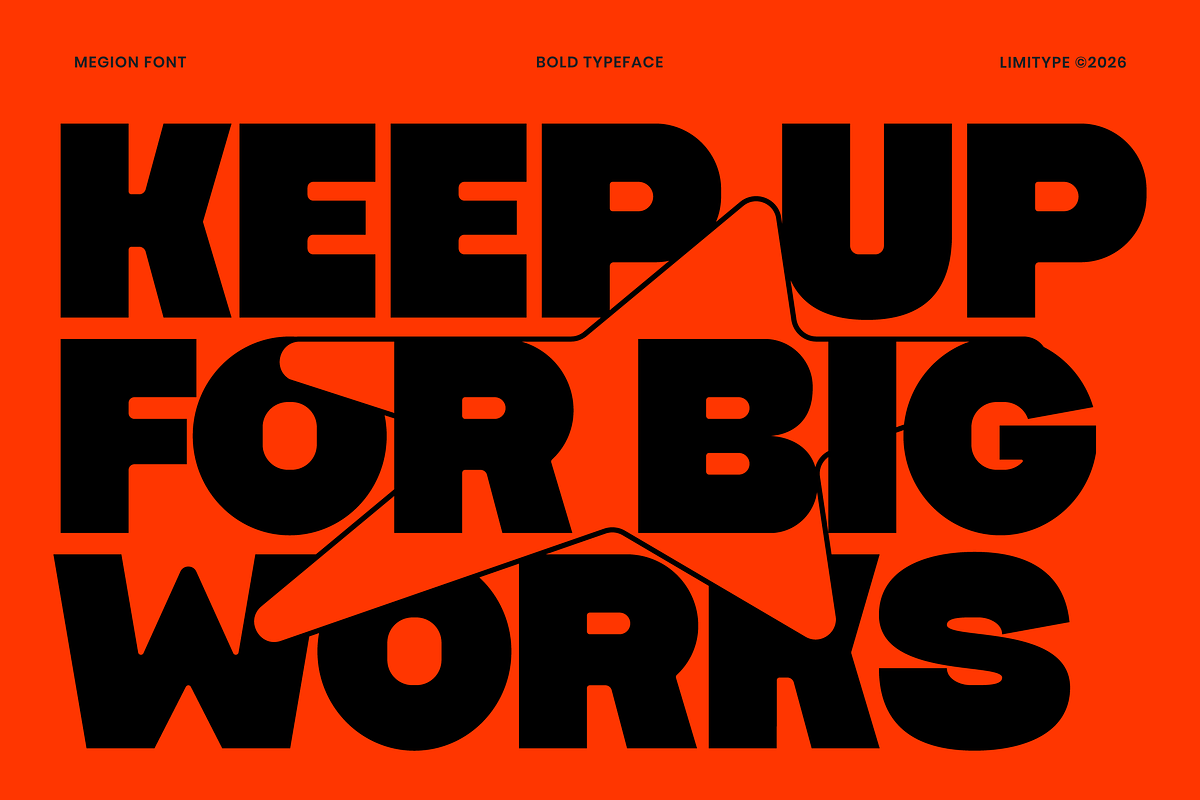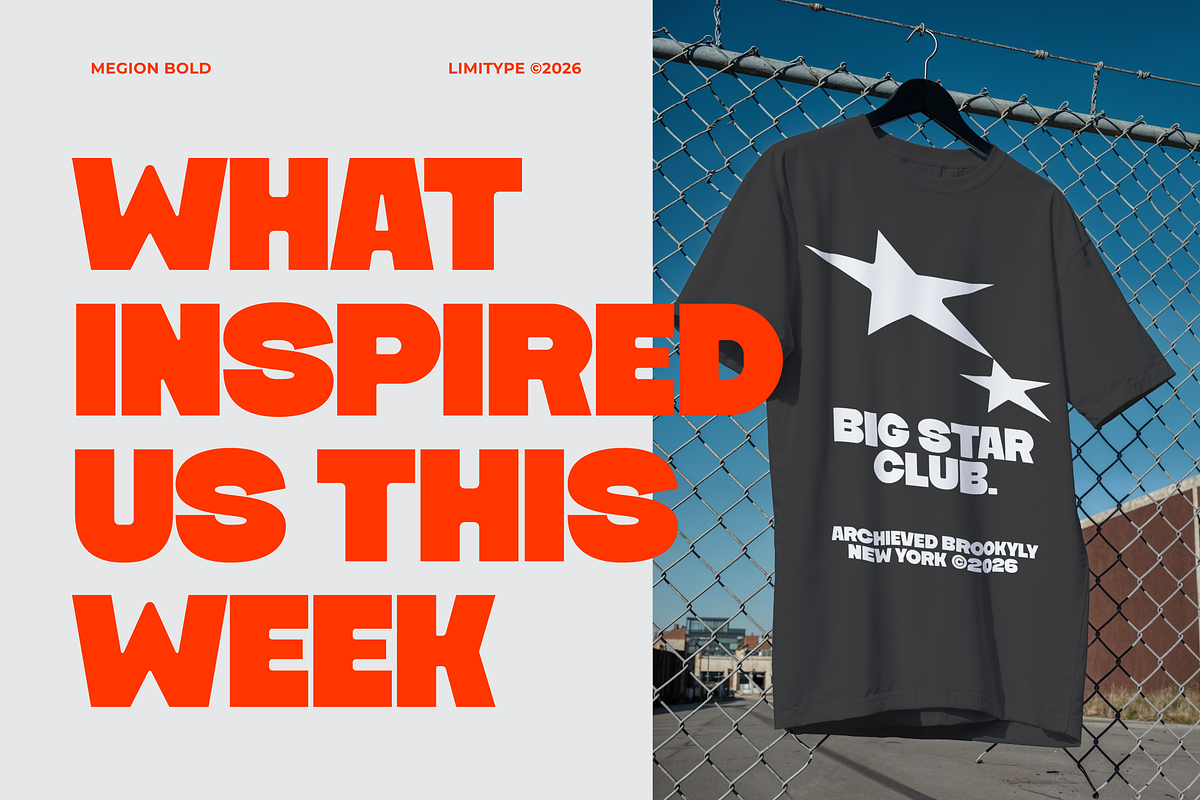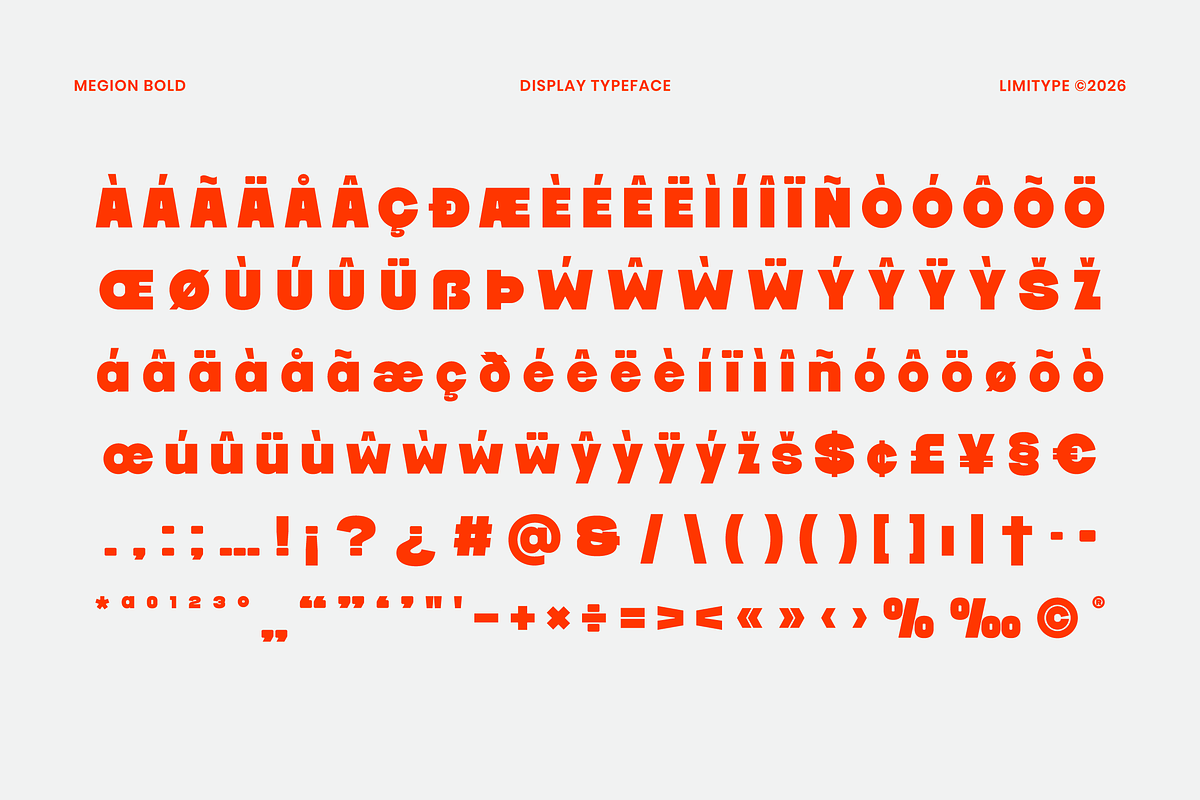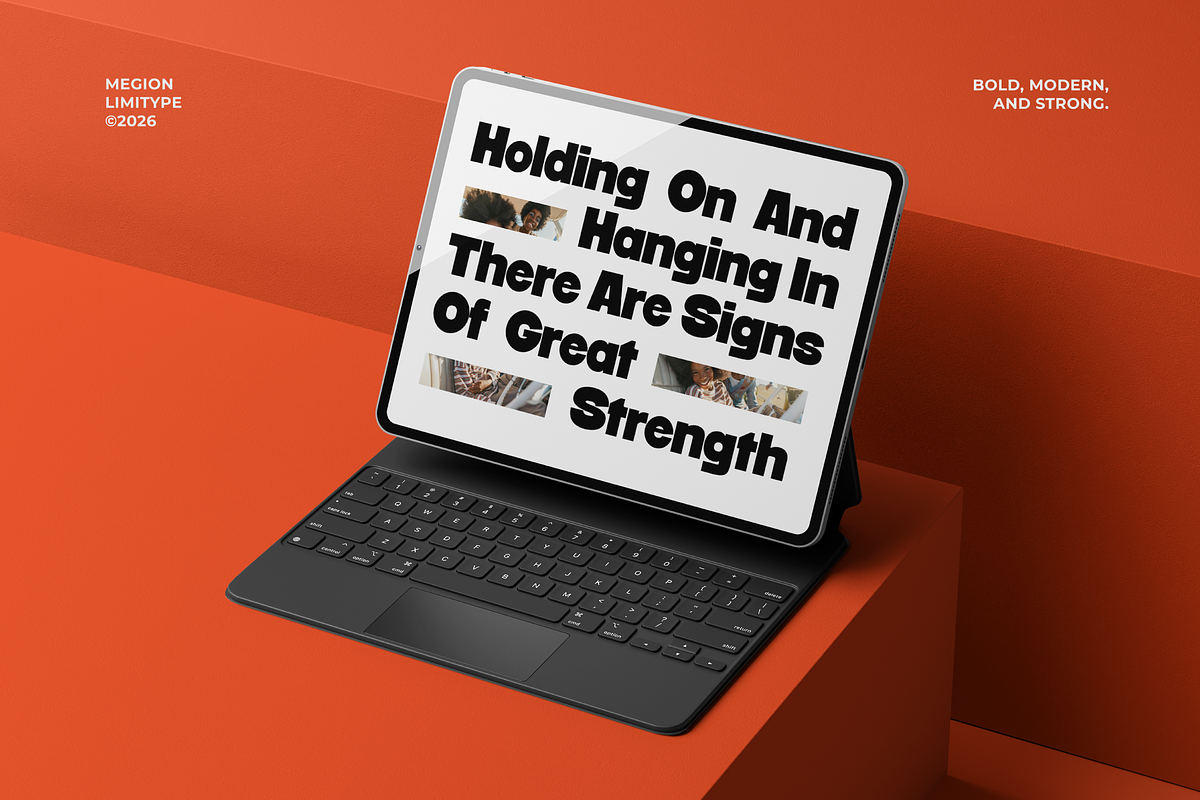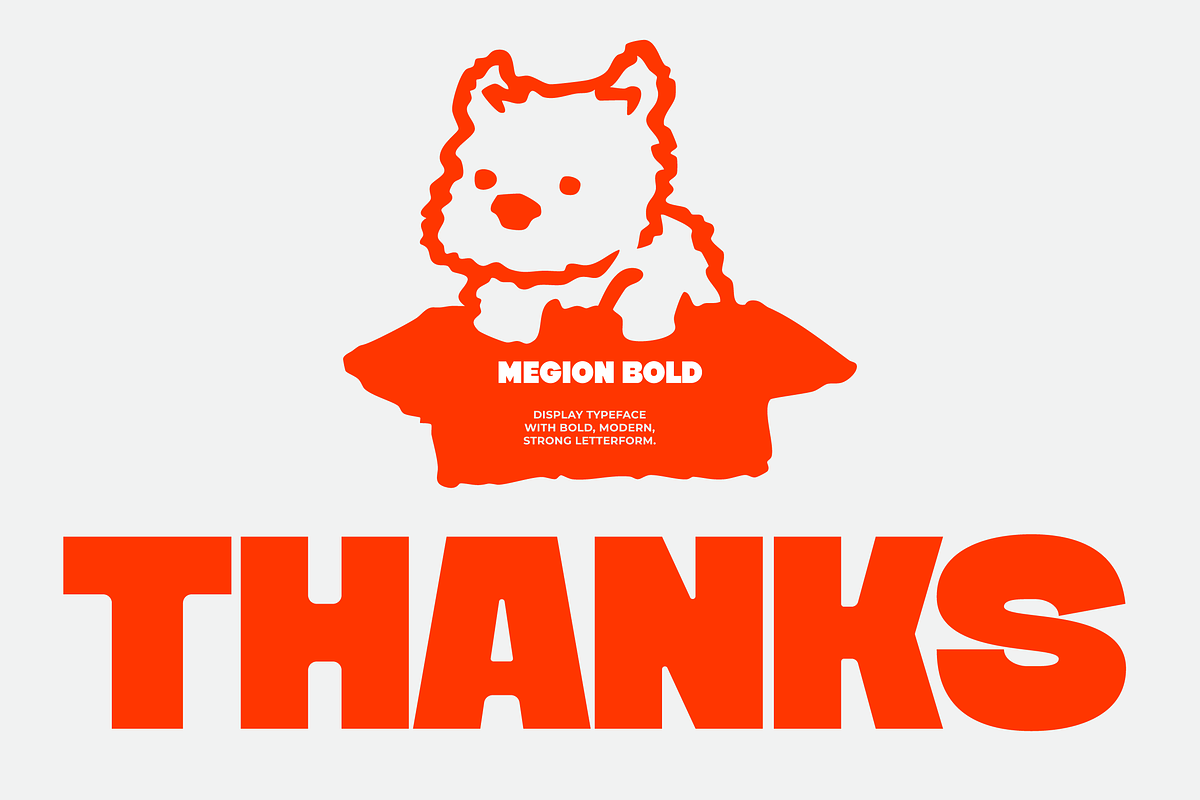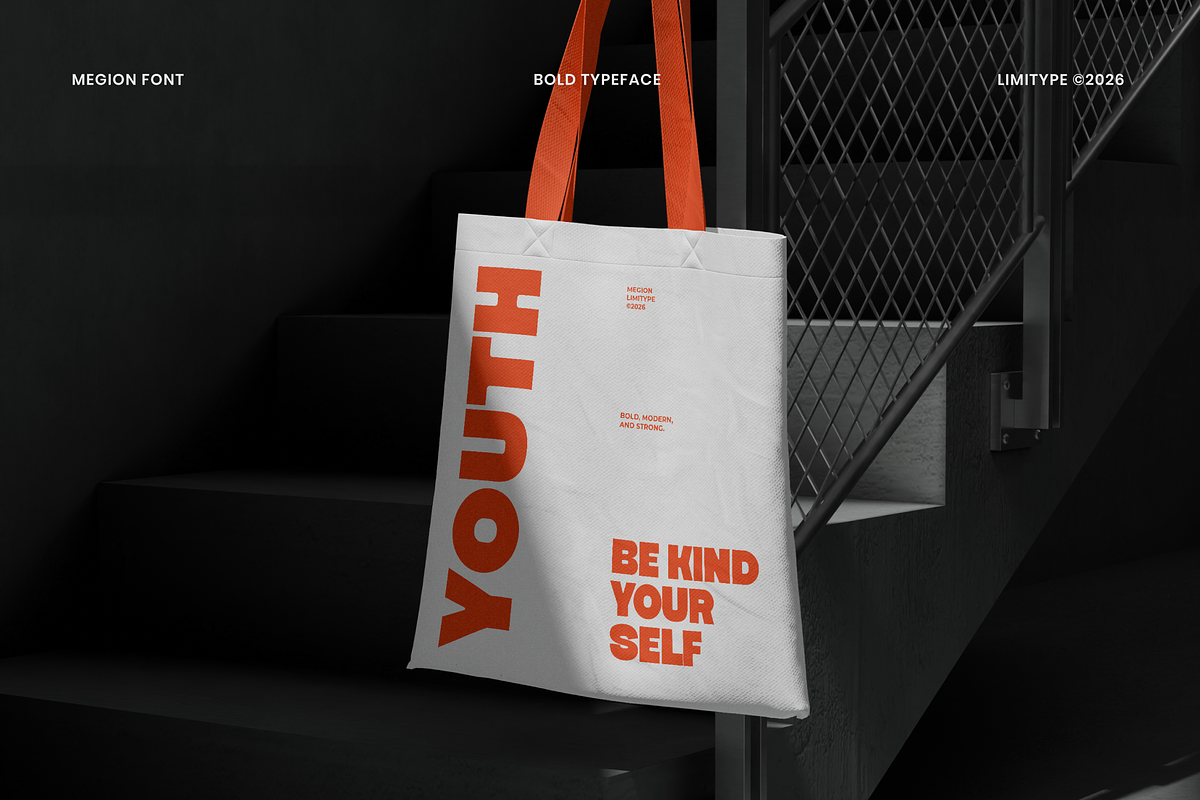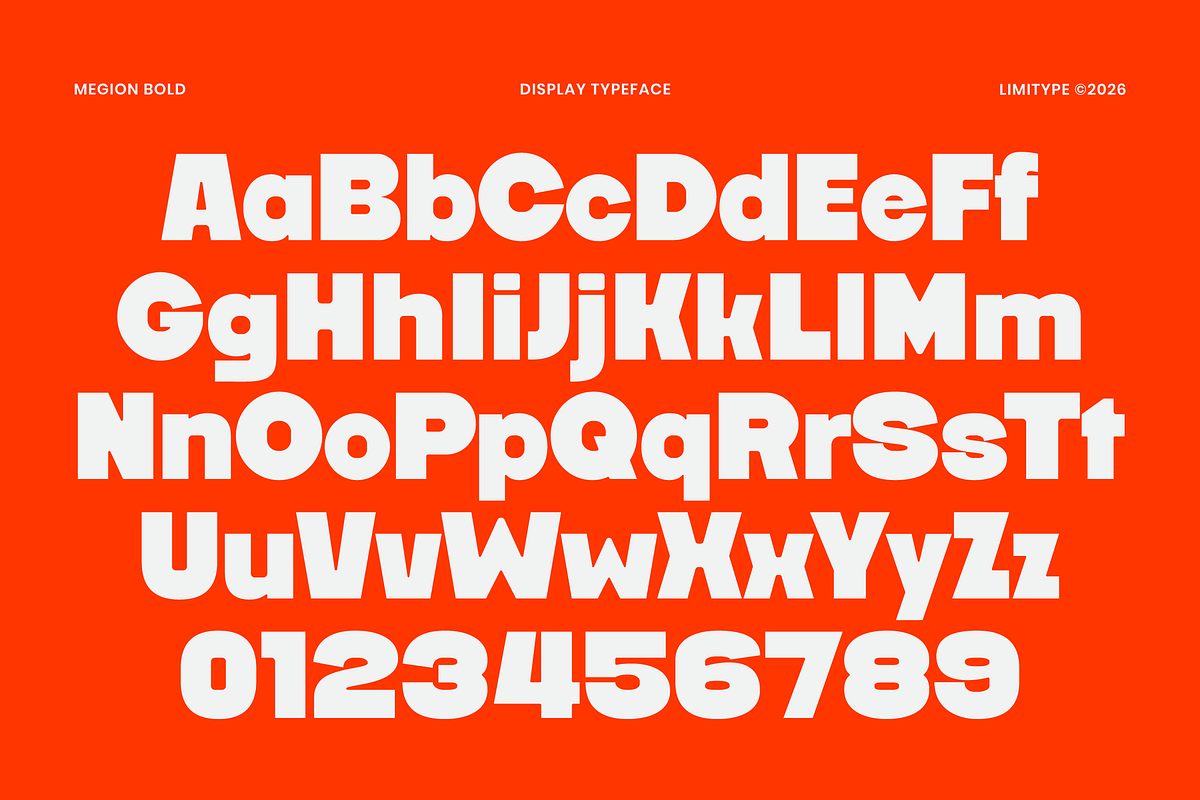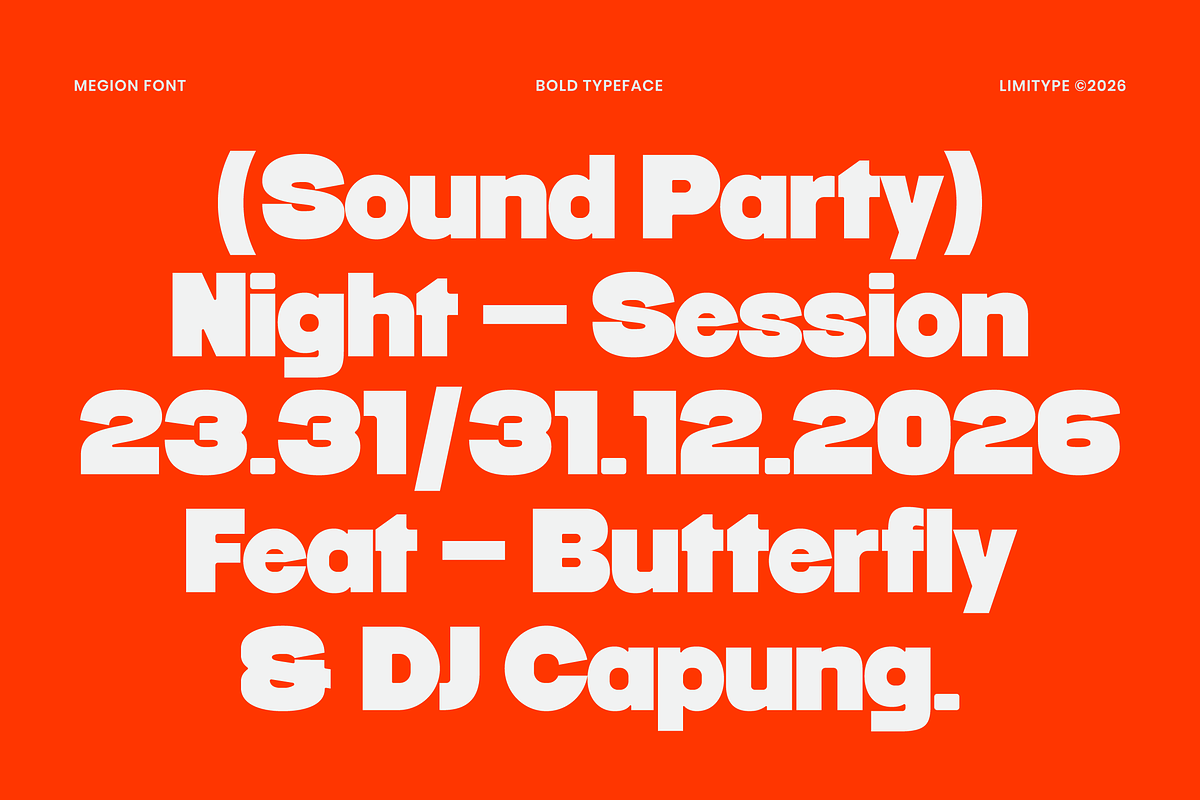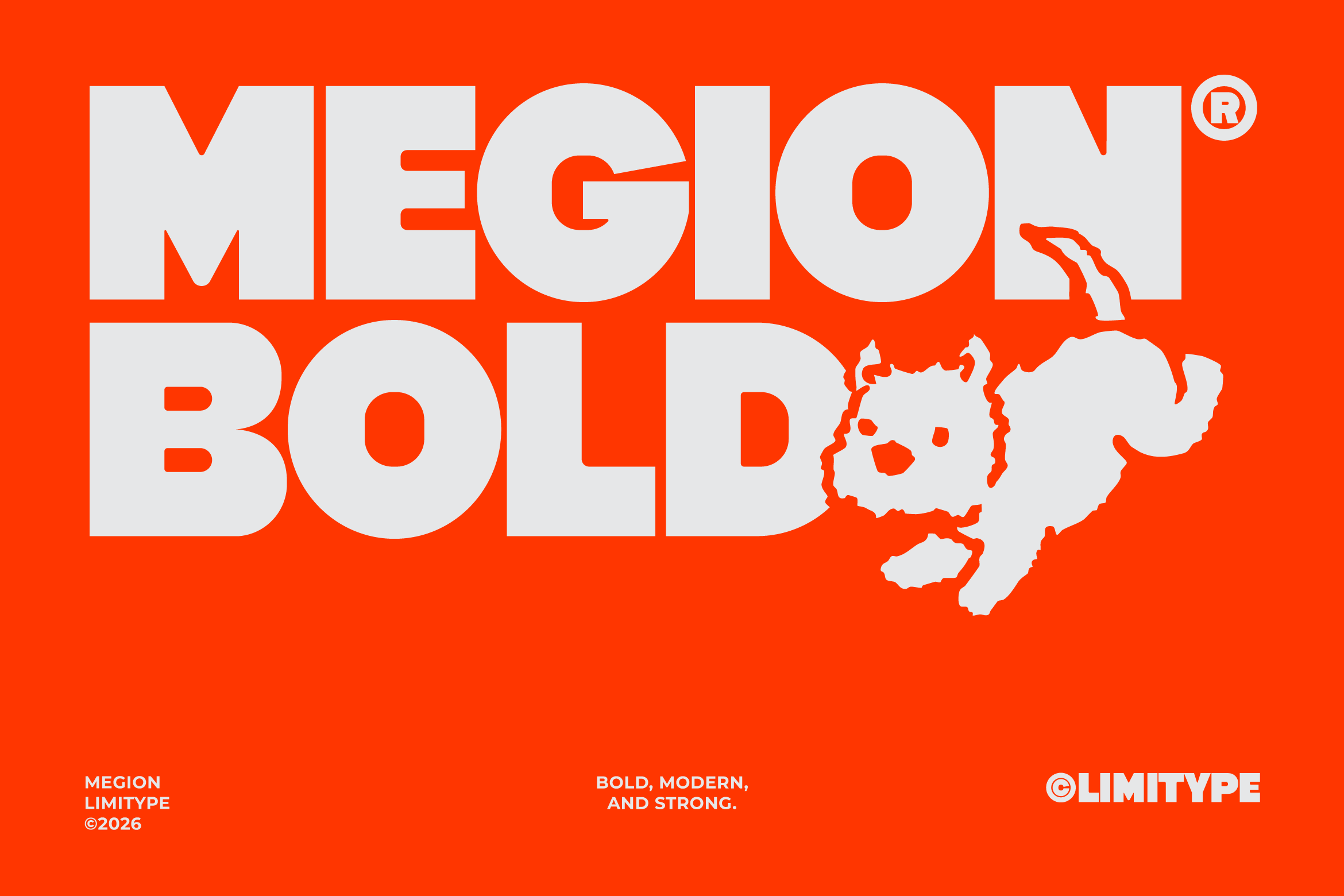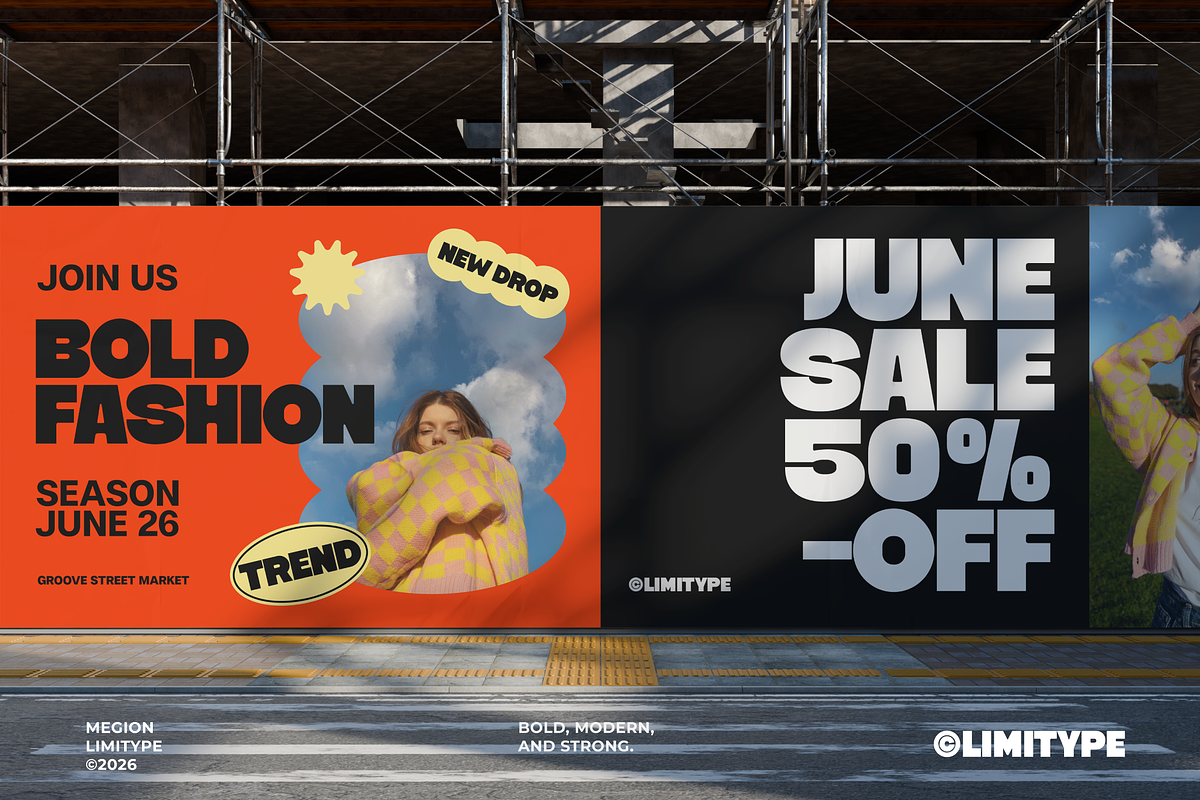
Megion - Bold Display Font
Megion is a bold display font with a modern and powerful character designed to create maximum visual impact. Featuring bold letterforms, clean construction, and distinctive character details, Megion is ideal for branding, headlines, posters, packaging, logotypes, editorial layouts, and a wide range of creative projects. Its contemporary style balances readability with a unique personality, helping brands and designers create visuals that are memorable, professional, attention grabbing across both digital and print media.
Lowercase
Number
Symbol